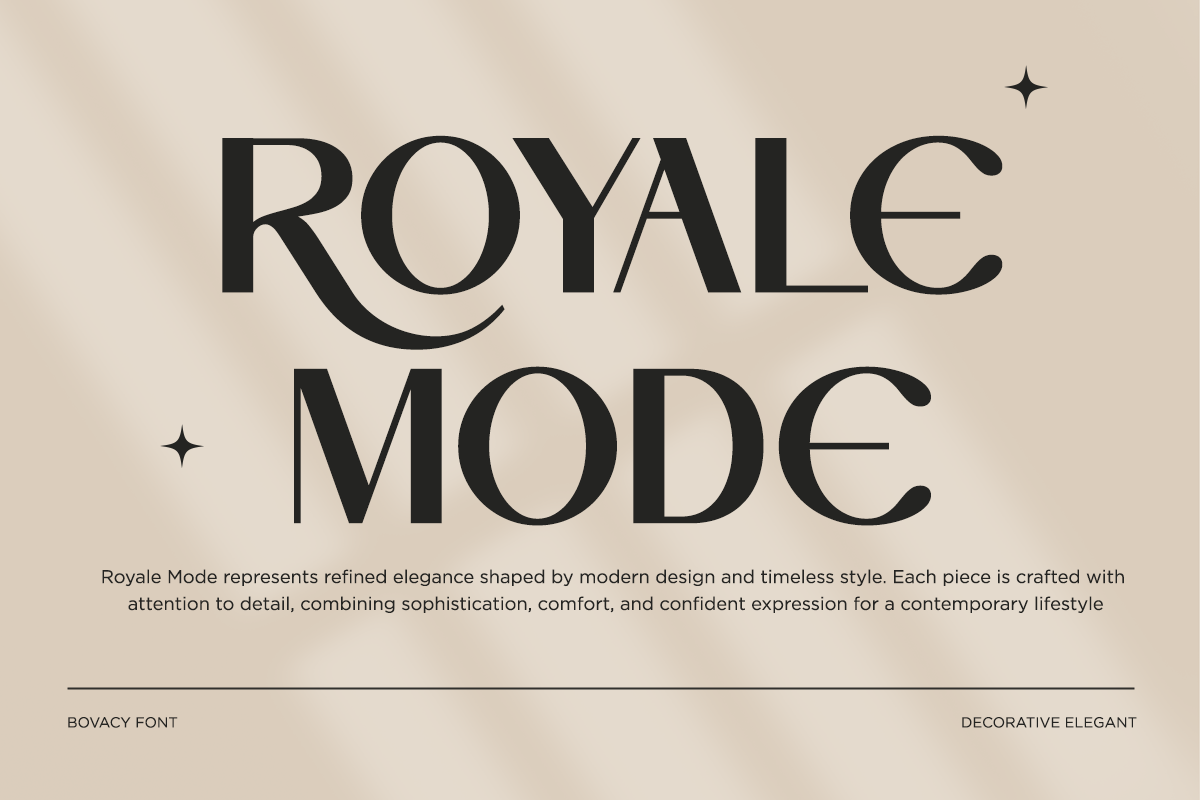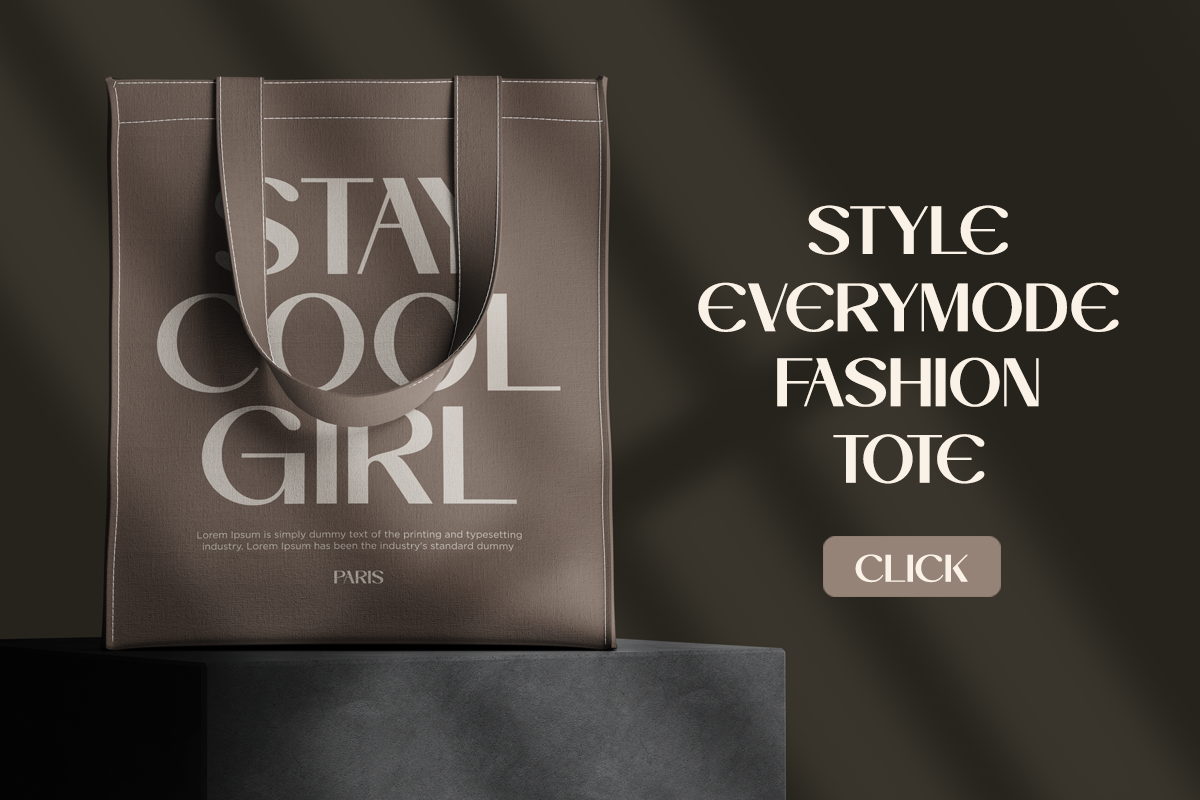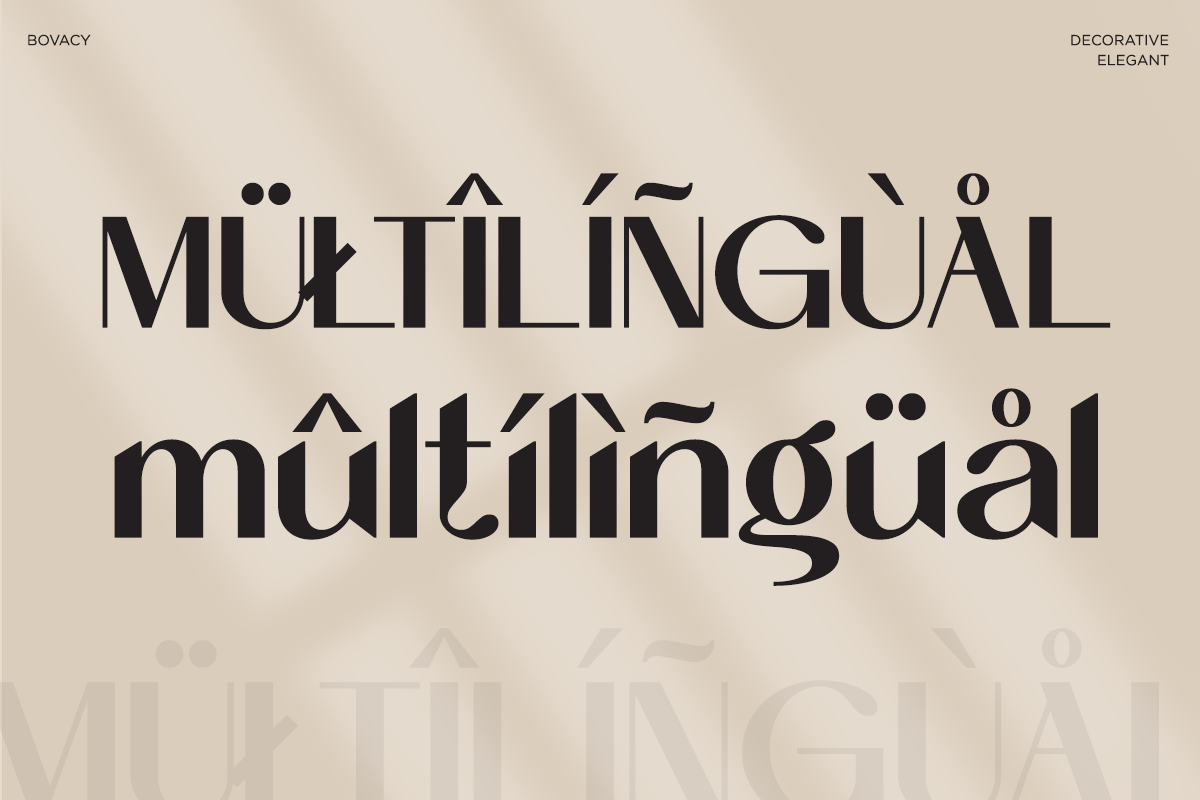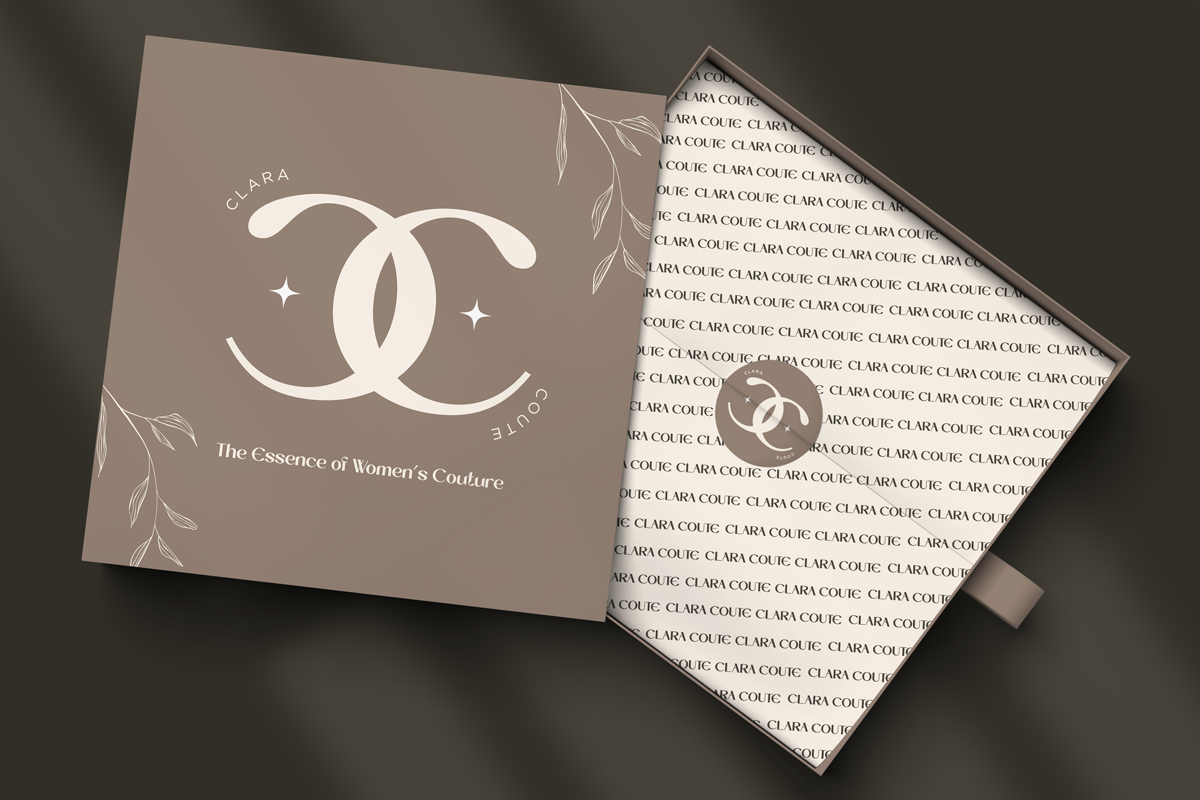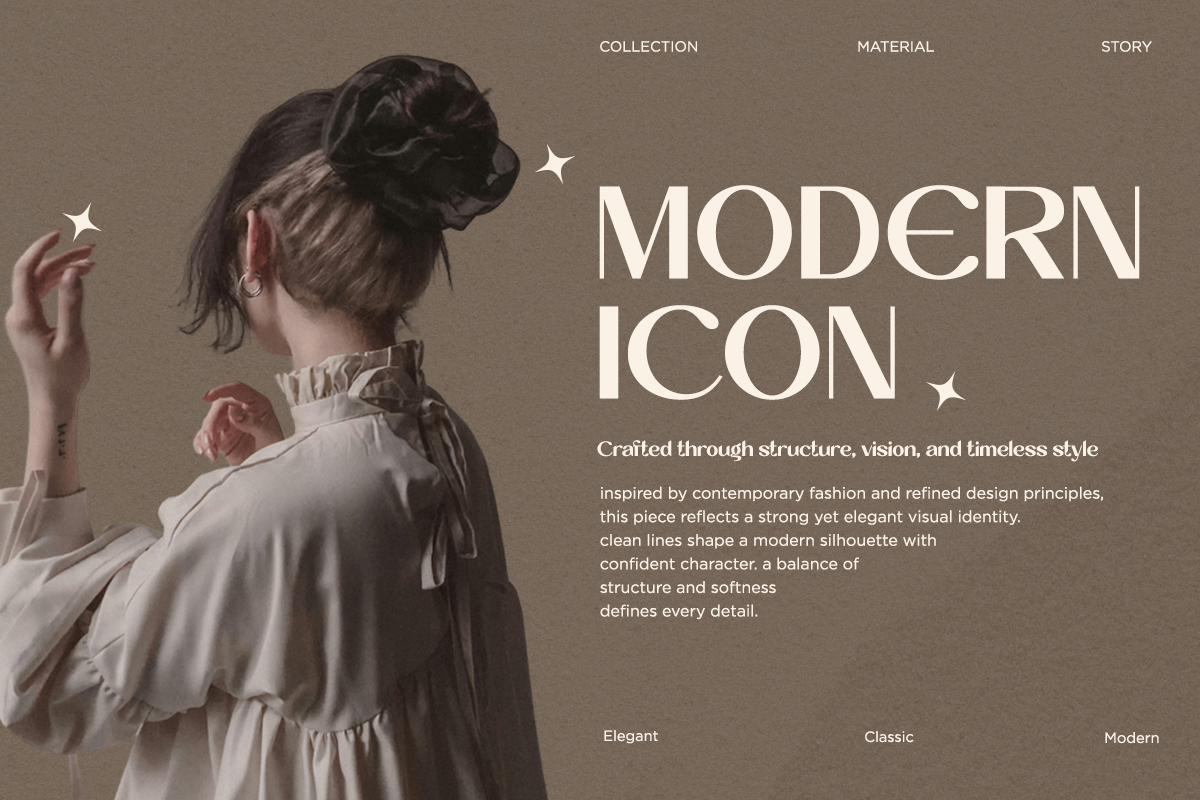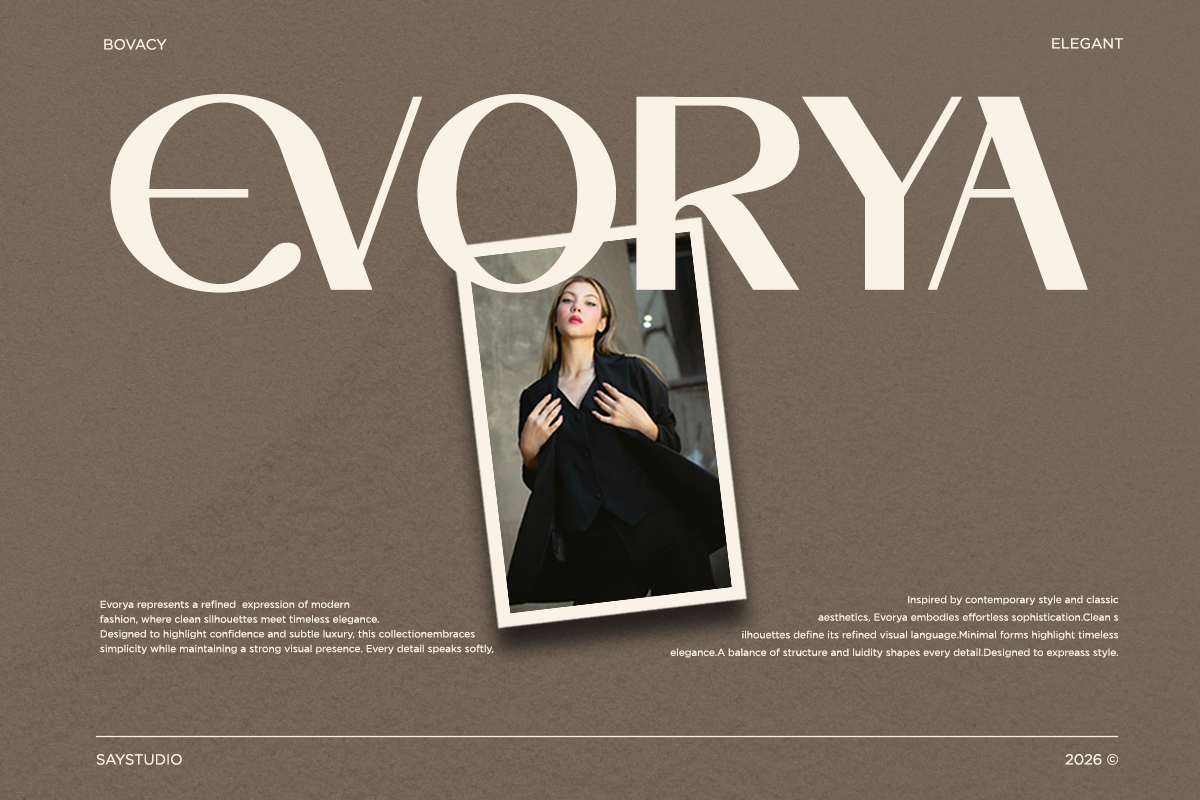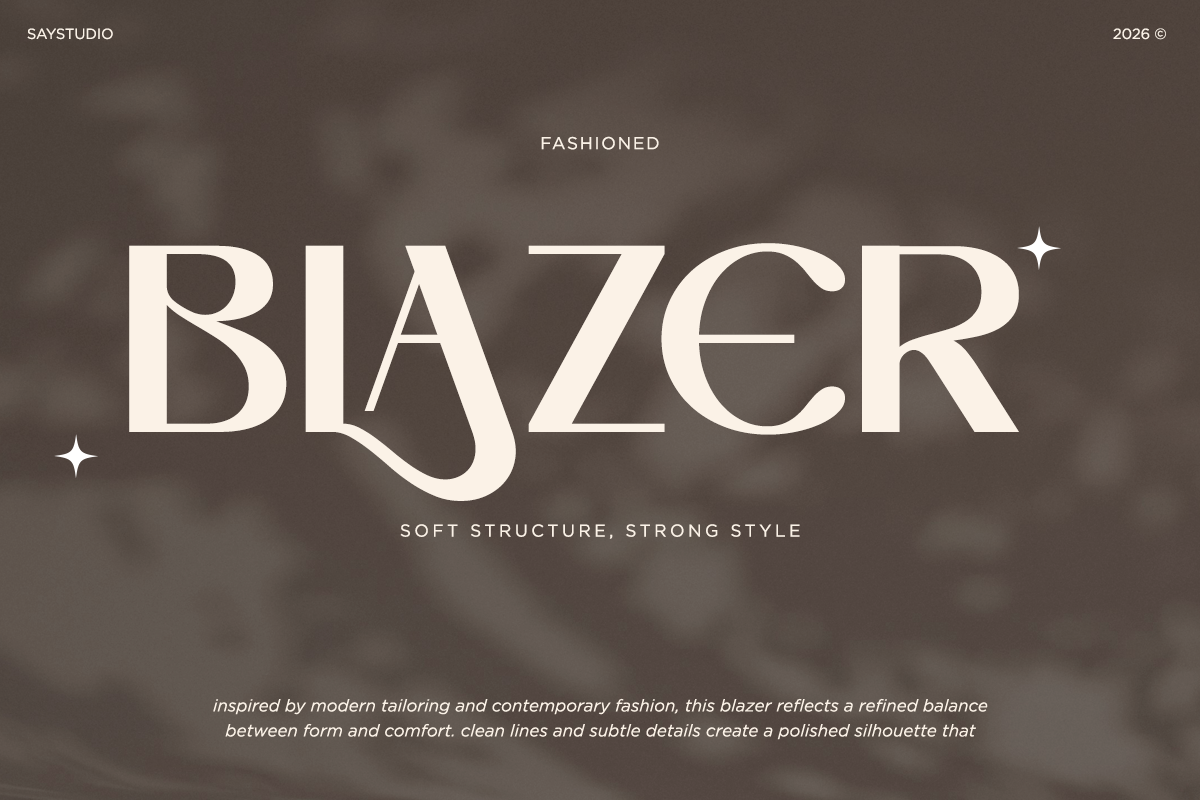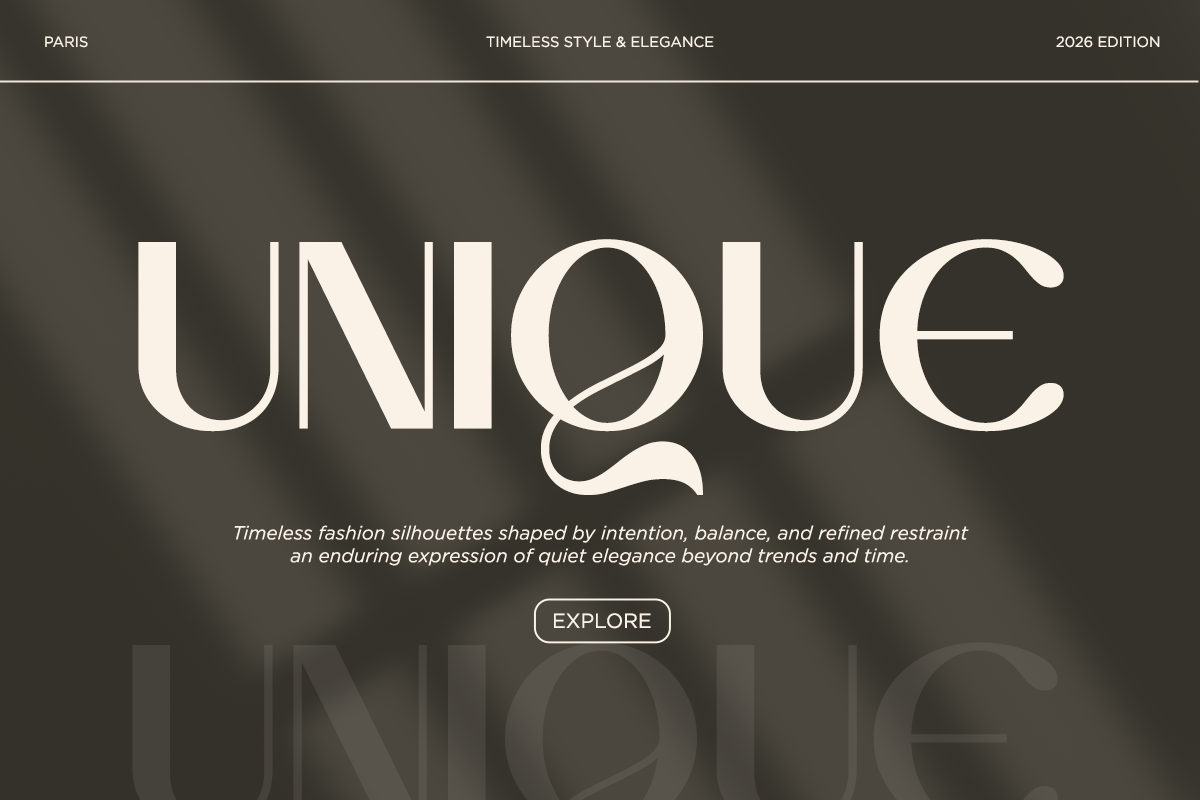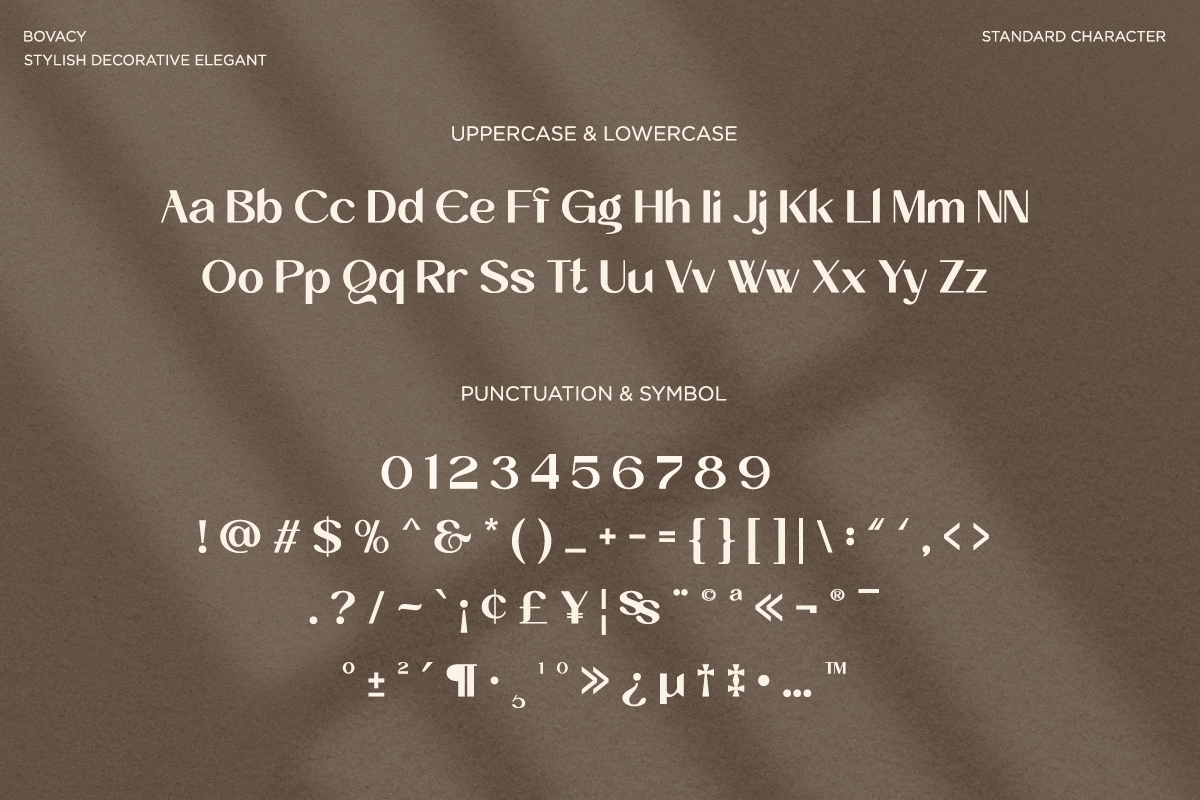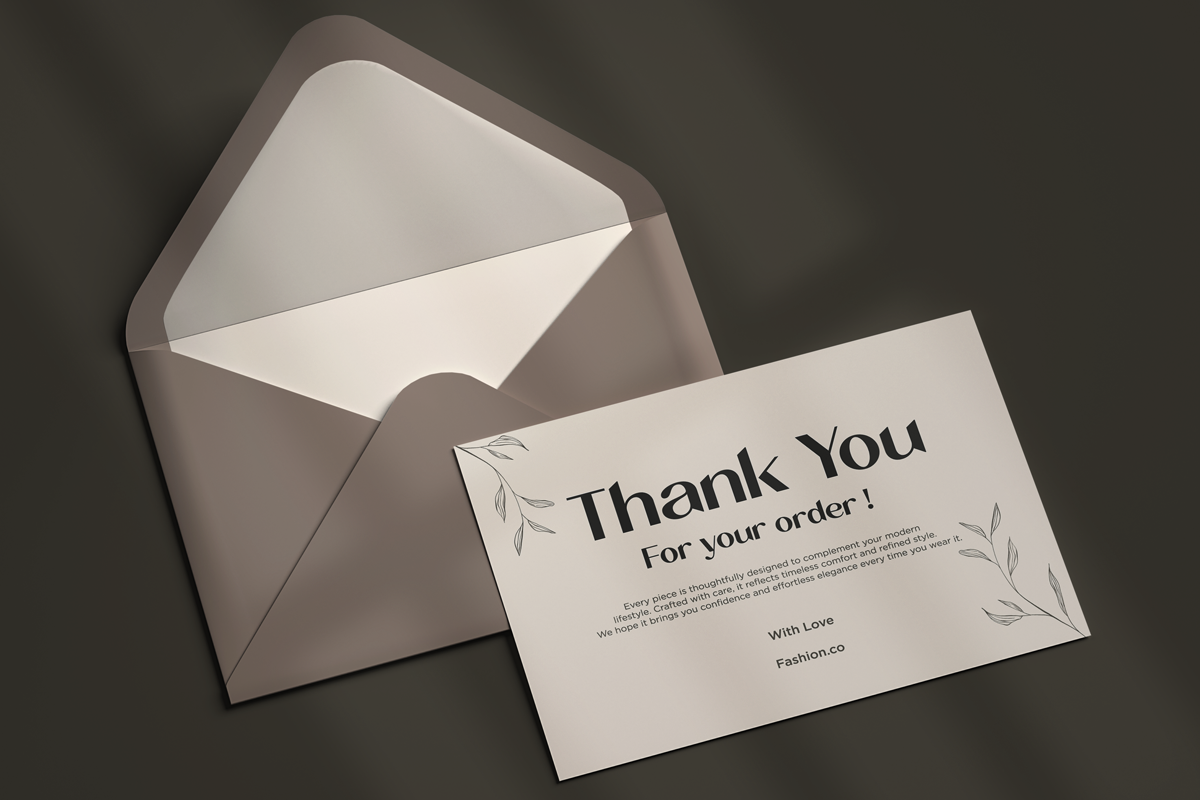
Bovacy - Modern Elegant Serif
Bovacy is a modern luxury serif typeface crafted to express elegance, confidence, and high-end aesthetics. Inspired by contemporary fashion editorials and premium branding, Bovacy blends refined curves with sharp contrasts, creating letterforms that feel exclusive, stylish, and timeless. Every character is designed to stand out while maintaining a clean and graceful presence.
With its stylish decorative details and special ligatures, Bovacy brings a sophisticated tone to headlines, logos, magazines, beauty branding, and luxury packaging. The balance between classic serif structure and modern elegance makes it highly versatile for both bold display use and refined editorial compositions.
Designed for designers who demand exclusivity, Bovacy delivers strong visual identity with a polished, fashion-forward look. Whether used for high-end branding, elegant typography systems, or standout visual campaigns, Bovacy elevates your design with unmistakable luxury appeal.
- Standard Uppercase & Lowercase
- Various Alternates
- Symbol and Number